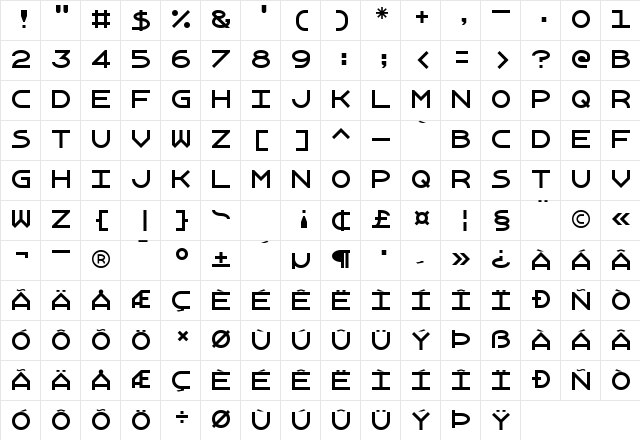
Xanmono Regular Free Font
Xanmono Regular
Foundry: GGBotNet
Designer: GGBotNet
Xanmono Family
Design Context for Xanmono
Xanmono uses fixed-width spacing throughout, giving it the structured, systematic character associated with coding environments and technical documentation.
Pro Tip: Use Xanmono with slightly increased line-height for extended reading - fixed-width spacing can feel dense in longer passages without extra breathing room.